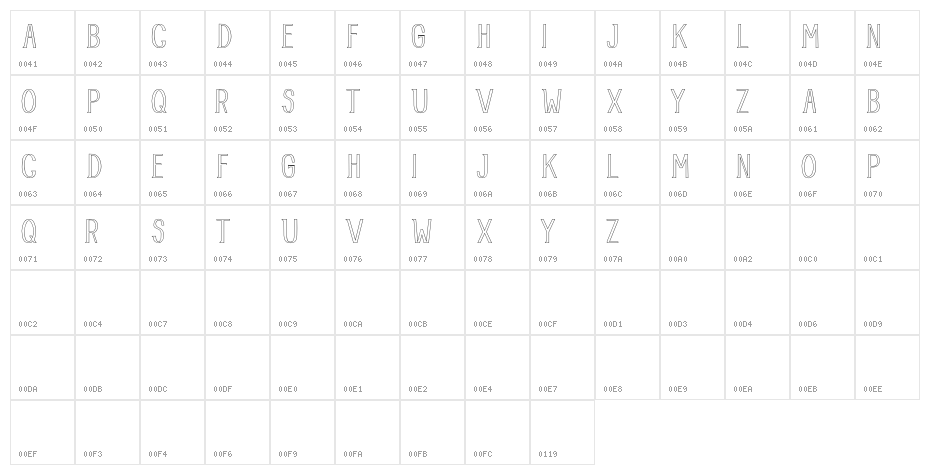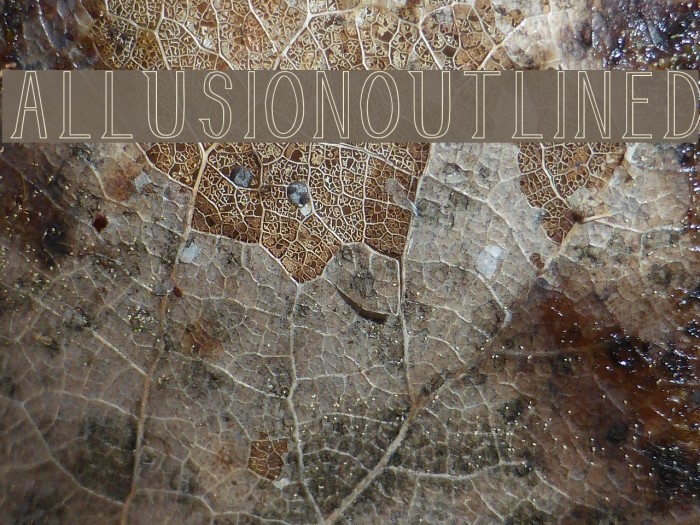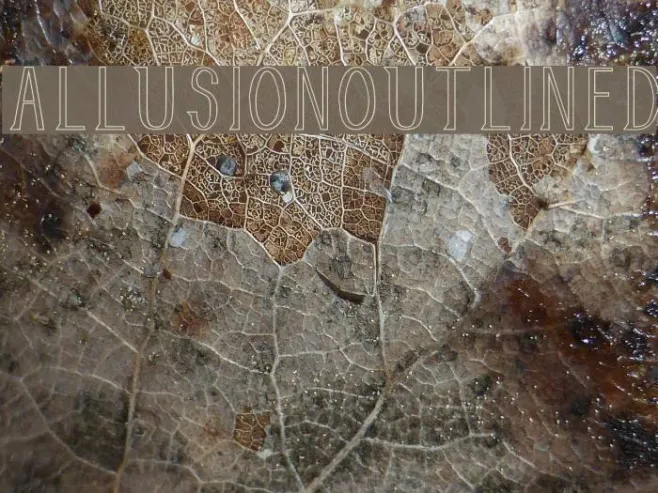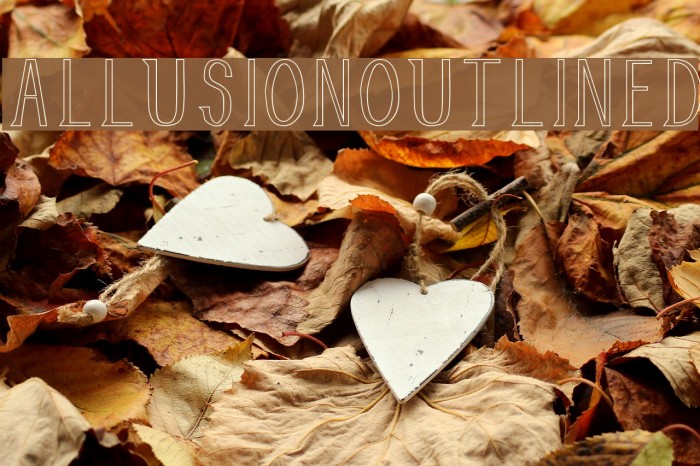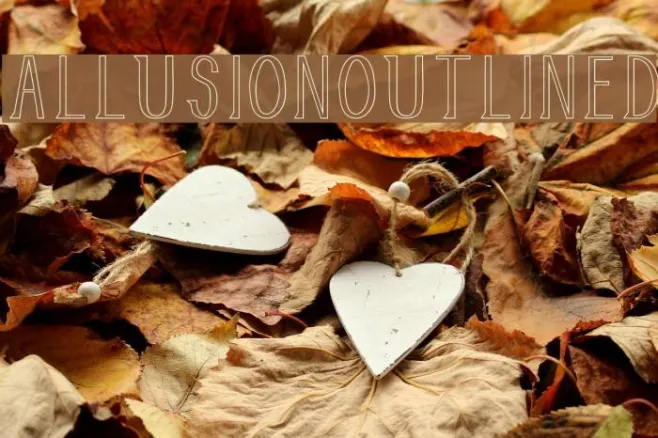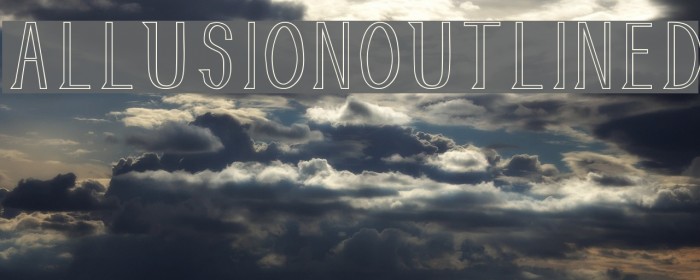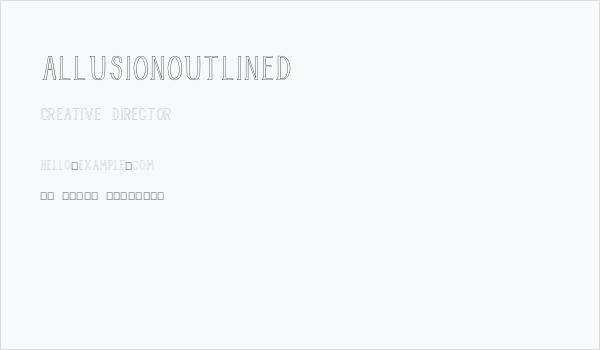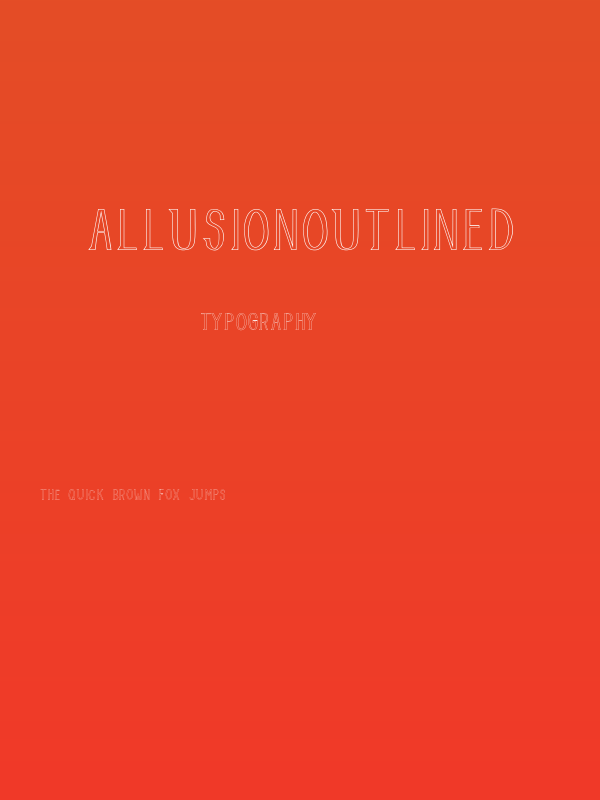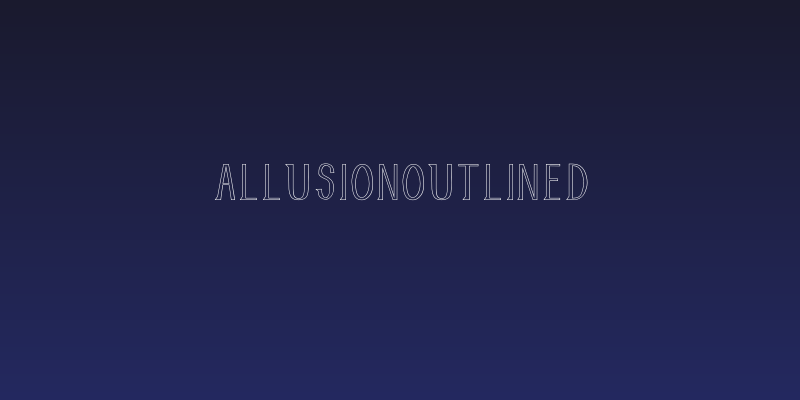
AllusionOutlined Font
AllusionOutlined Description
This font features a distinct outlined style, characterized by its hollow letterforms that create a striking visual impact. The uppercase letters are bold and geometric, with clean lines and sharp angles that give it a modern and sophisticated appearance. The font maintains a consistent stroke width throughout, emphasizing its outlined nature. The spacing between characters is balanced, ensuring readability while maintaining its unique aesthetic. This font is ideal for projects that require a contemporary and eye-catching design, such as branding, posters, and headlines.
| Proposed Projects | Ideal for branding, posters, headlines, and any design needing a modern, eye-catching font. |